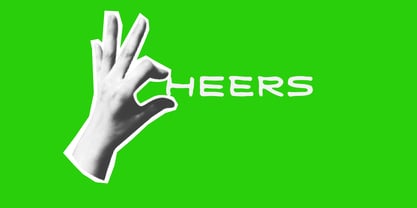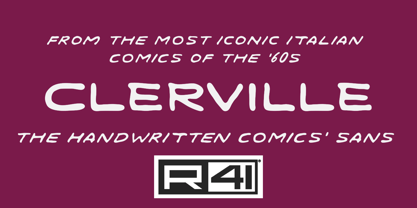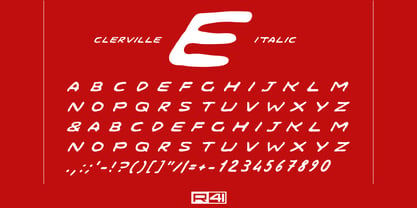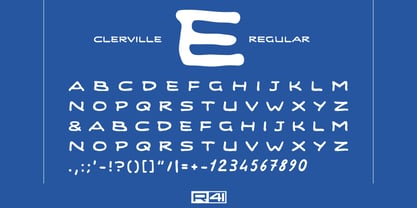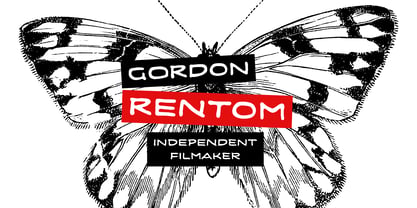
R41 Clerville
by Reber R41
The R41 Clerville Font Family was designed by Ariel Brandolini, Daniele Medina and published by Reber R41. R41 Clerville contains 2 styles and family package options. More about this family
Clerville is an homage to the fervid Italian comic book period of the 1960s, known for its vibrant calligraphy and lettering aesthetic. This typeface takes inspiration from icons such as Diabolik and other works from that decade, characterized by bold and dynamic strokes. Energetic and elegant, Clerville captures the essence of stylized calligraphy typical of that period when adventure, horror and intrigue were woven into every vignette, with glyphs carefully drawn to reflect that distinctive lettering.
Designers: Ariel Brandolini, Daniele Medina
Foundry: Reber R41